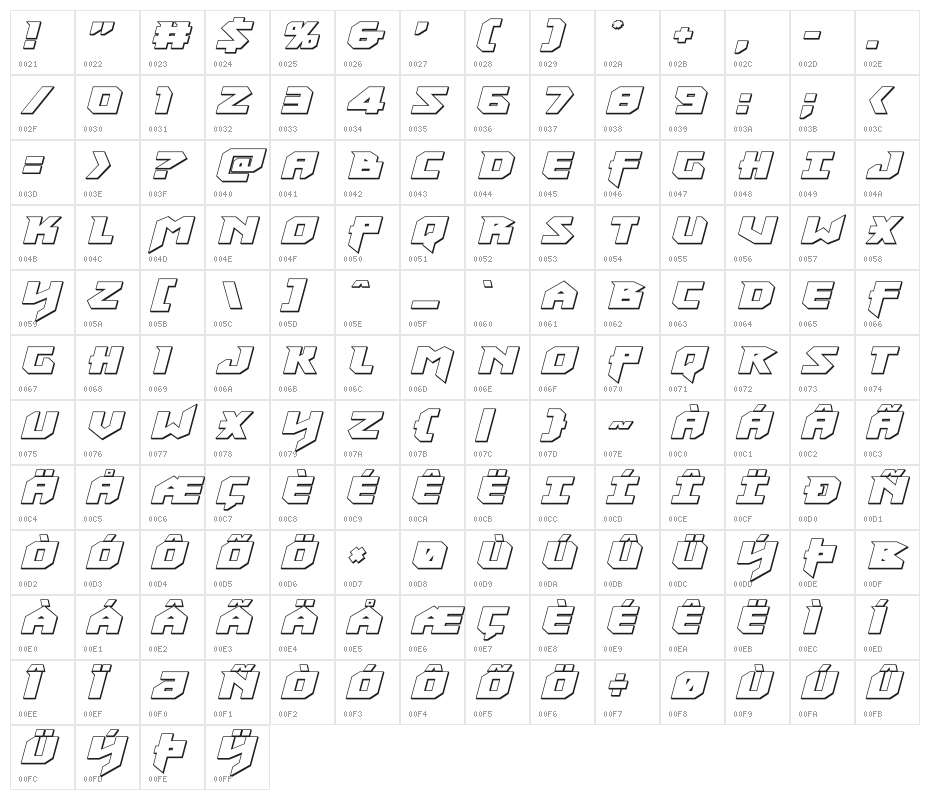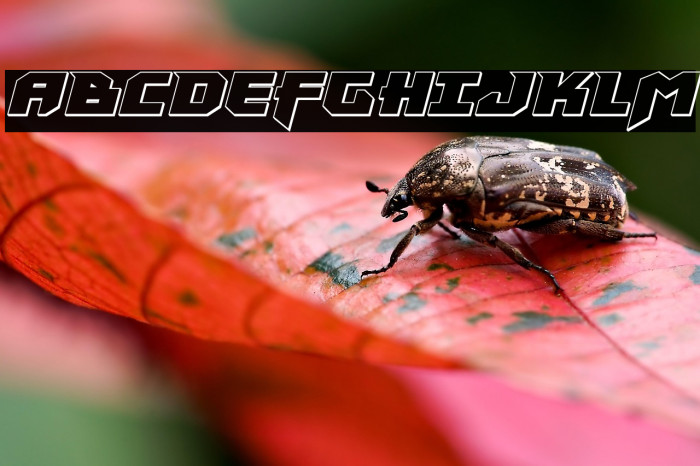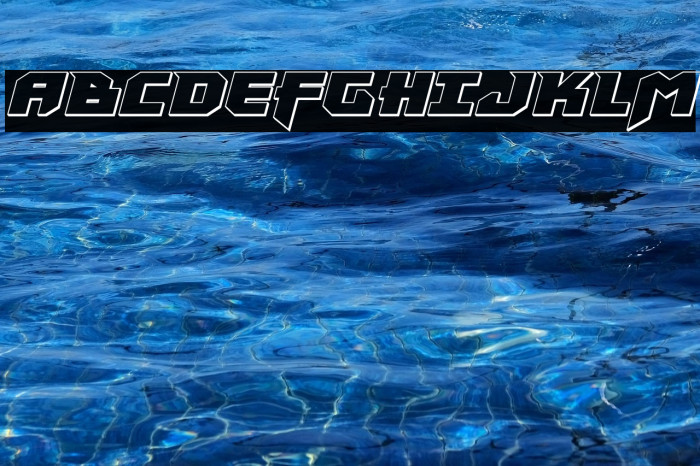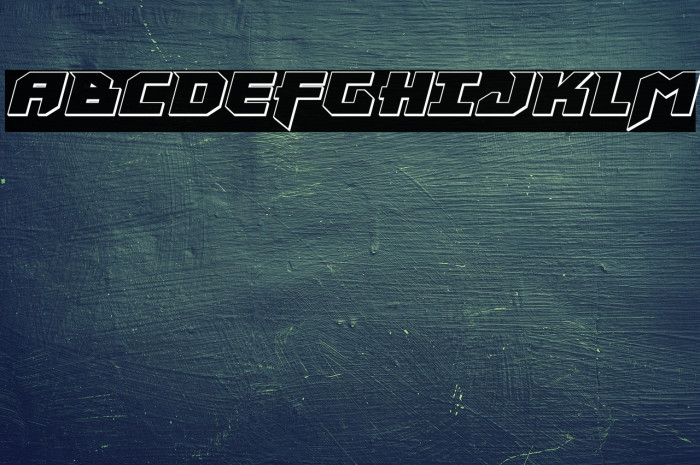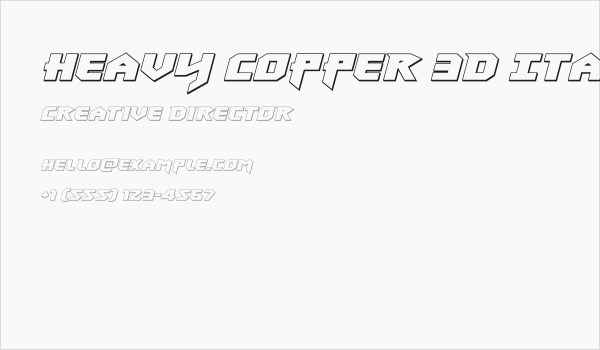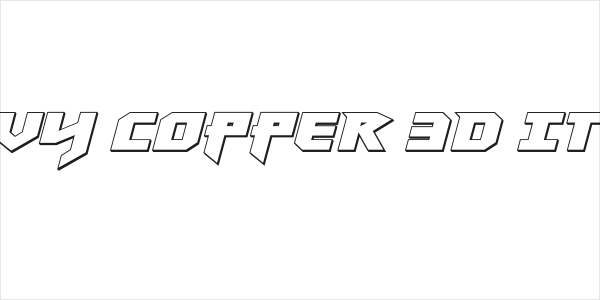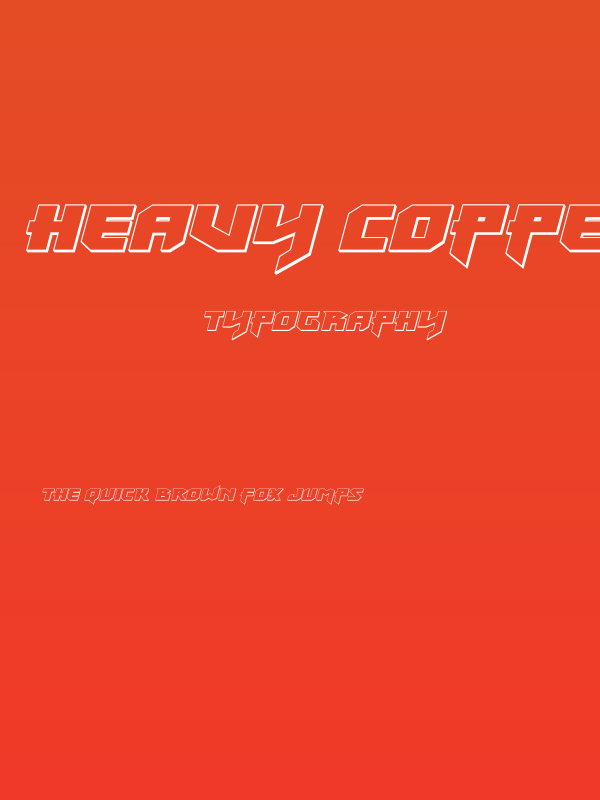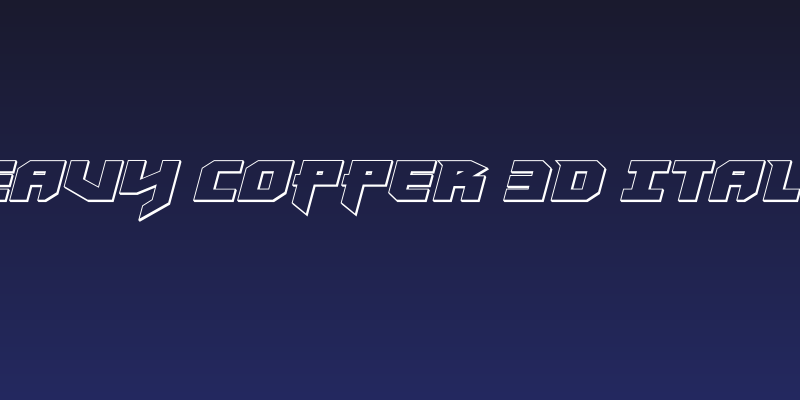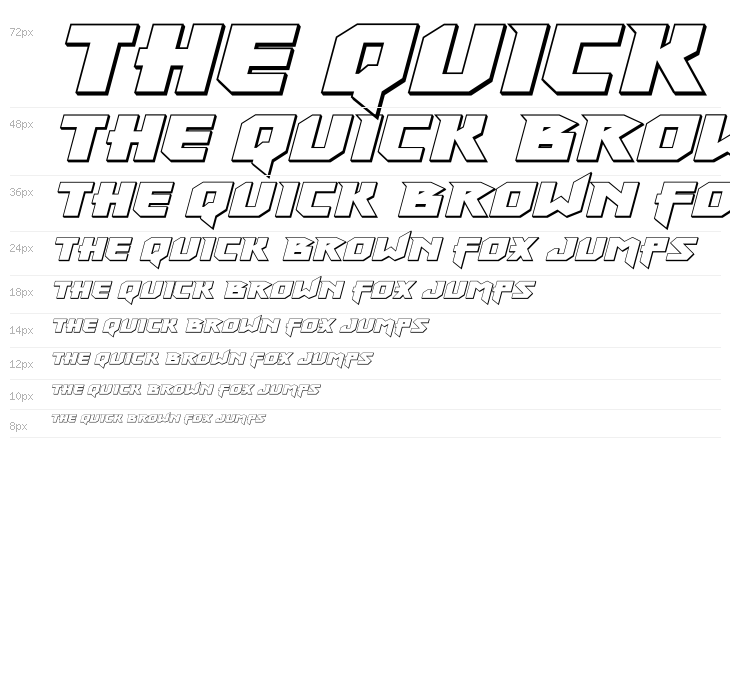
Heavy Copper 3D Italic Font
Heavy Copper 3D Italic Description
This font features a bold, angular design with a distinct 3D effect, giving it a futuristic and dynamic appearance. The characters are italicized, enhancing the sense of motion and energy. Each letter is outlined, adding depth and a striking visual impact. The geometric shapes and sharp edges make it ideal for attention-grabbing designs. The font maintains a consistent style across uppercase, lowercase, numbers, and special characters, ensuring versatility in various applications.
| Proposed Projects | Ideal for video game titles, sci-fi posters, tech branding, and dynamic logos. |